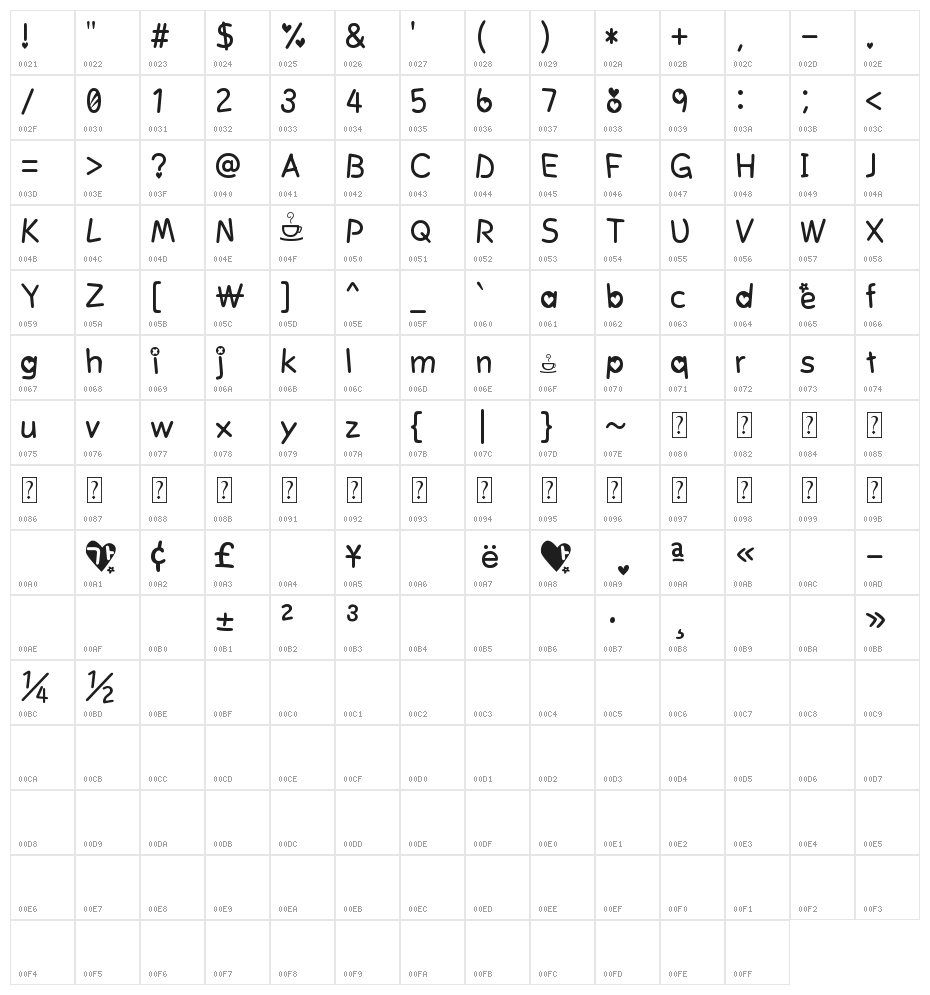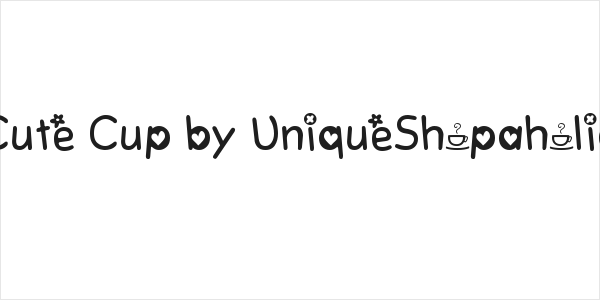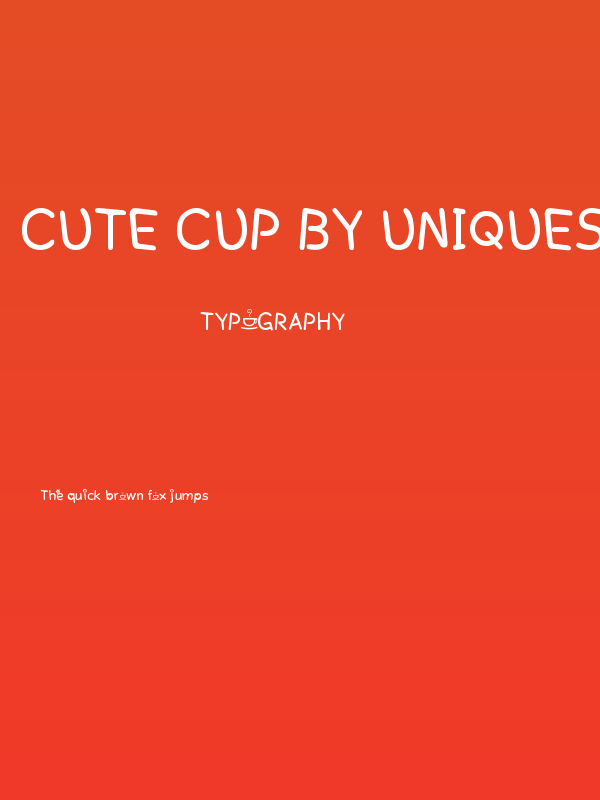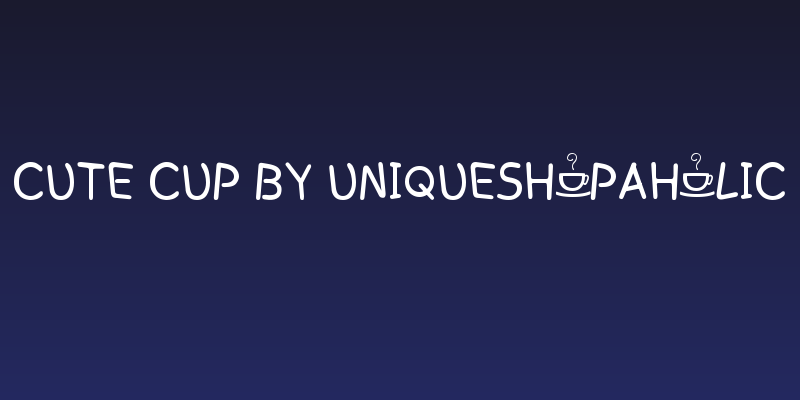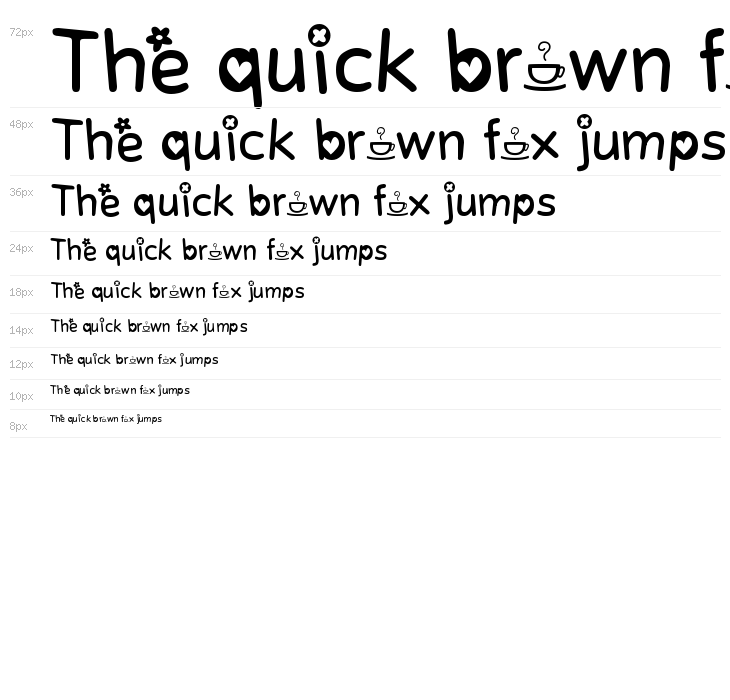
Cute Cup by UniqueShopaholic Font
Cute Cup by UniqueShopaholic Description
This playful and whimsical font features a hand-drawn style with a charming and casual appearance. Each character is uniquely crafted, incorporating playful elements such as hearts and stars within the letters. The uppercase and lowercase letters maintain a consistent, rounded form, adding to the font's friendly and approachable feel. Numbers and special characters are designed with the same playful aesthetic, making this font perfect for creative and informal projects. The overall design is bold and eye-catching, with a slight irregularity that adds to its charm.